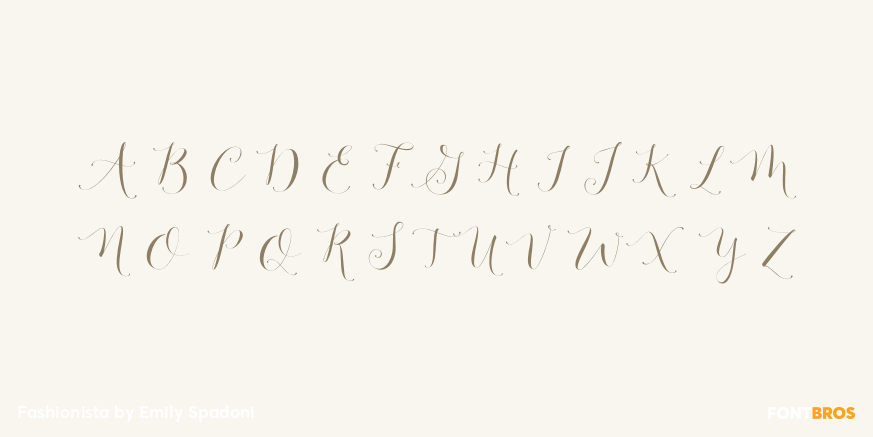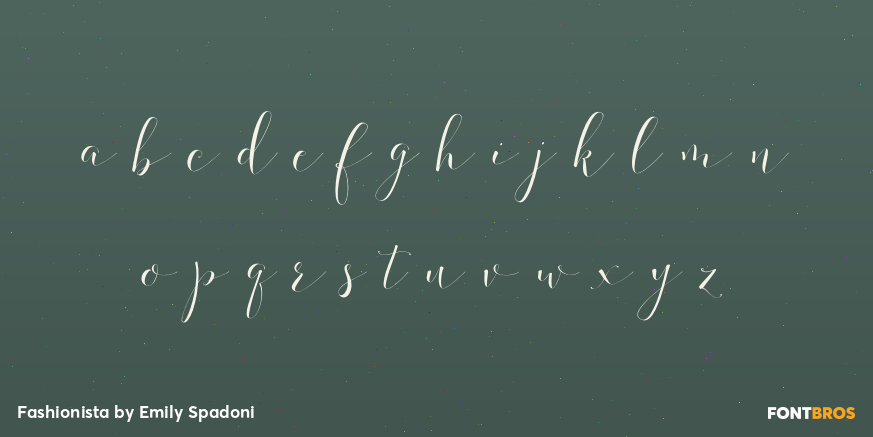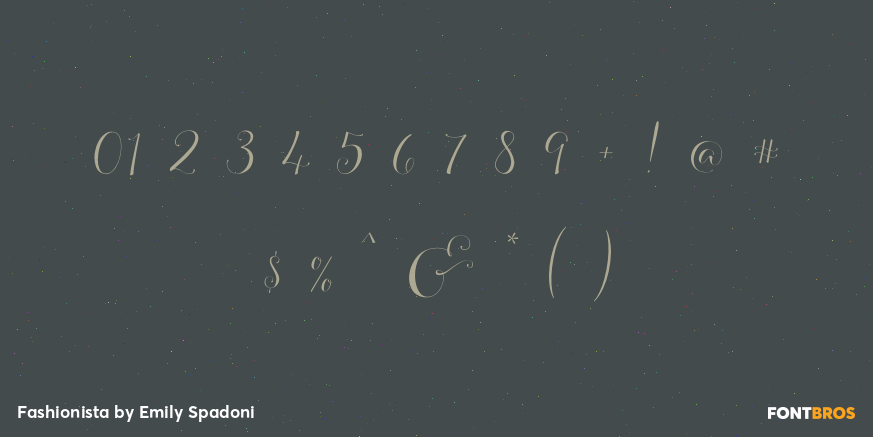
Fashionista
Font Family by Emily Spadoni
Meet Fashionista! Contemporary and clean hand-lettered calligraphy style script. This mix of modern and classic writing is soon to be your favorite for weddings, stationary, logos and more!
• 9 Lower-case styles
• Additional Common Letter Combinations
• Multi-lingual Glyphs
• International and Special Punctuation
With hundreds of alternate letters, everything you create will be completely unique. And it's so much fun to create your own hand-lettered text styles. The combinations of sweet swirly letters are endless.